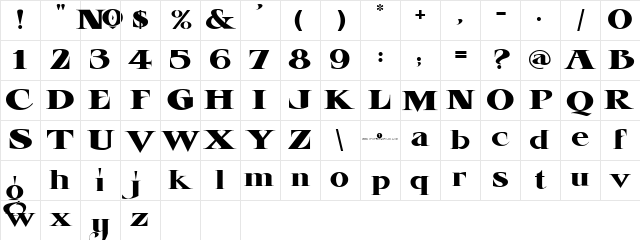
LHF Esoteric New REG Regula
Style: Regula
Design Context for LHF Esoteric New REG
LHF Esoteric New REG is a composed and adaptable typeface that performs quietly and consistently across a wide range of design contexts.
Pro Tip: Use LHF Esoteric New REG in both headline and body roles to test its range before committing to a single application.